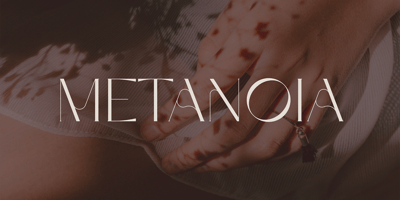
Metanoia Font is ideal for spiritual wellness branding, meditation center identities, transformational coaching materials, mindfulness app interfaces, personal development publications, yoga studio signage, philosophical book covers, therapeutic practice branding, consciousness-focused marketing, and enlightenment-themed creative projects. This transformative typeface excels in environments where spiritual growth, personal transformation, and inner wisdom are essential for connecting with awakening audiences.
What makes Metanoia Font exciting is its profound embodiment of spiritual transformation and conscious evolution through carefully crafted letterforms that reflect the journey of inner change and enlightenment. The font features flowing, harmonious characteristics with subtle spiritual influences that convey peace, wisdom, and the transformative power of consciousness. This enlightened aesthetic makes it perfect for brands seeking to communicate spiritual authenticity, personal growth, and the profound journey of inner transformation.
Metanoia Font family includes Light, Regular, Medium, Bold, Spiritual, Flowing, Contemplative, and Enlightened variants. Each style maintains the font's distinctive transformational character while offering different levels of spiritual intensity and conscious expression, enabling designers to create authentic wisdom-focused compositions that celebrate personal growth and spiritual evolution.
The Metanoia Font Free Download provides designers with access to a premium spiritually-inspired typeface that embodies the essence of conscious transformation and inner awakening. This font's profound aesthetic and transformational qualities make it particularly valuable for wellness organizations, spiritual teachers, and consciousness-focused brands seeking to establish genuine connections with spiritually-minded audiences.
Spiritual design professionals appreciate the font's ability to instantly communicate transformation, wisdom, and spiritual authenticity. The letterforms' flowing characteristics and conscious energy create deep emotional resonance that conventional fonts cannot achieve, making it essential for projects requiring distinctive spiritual personality and transformational appeal.
When working with Metanoia Font, designers can create compelling visual narratives that resonate with spiritual seekers and consciousness-focused communities. The font's transformational character makes it especially effective for brands in wellness, spiritual education, meditation, and personal development where authentic spiritual credibility and transformational appeal are crucial for meaningful connection.
For digital applications, Metanoia Font maintains its distinctive spiritual qualities across different platforms while ensuring readability in modern wellness contexts. Its optimized character spacing preserves the flowing nature essential for authentic spiritual appeal.
Consciousness-focused agencies consistently select Metanoia Font for projects requiring genuine spiritual appeal and transformational authenticity, where conventional typography cannot capture the desired wisdom and inner transformation that defines contemporary spiritual and wellness culture.